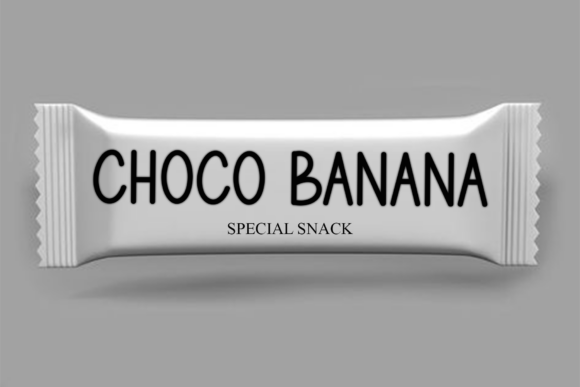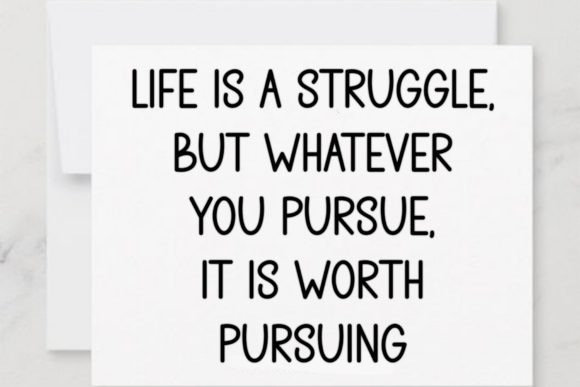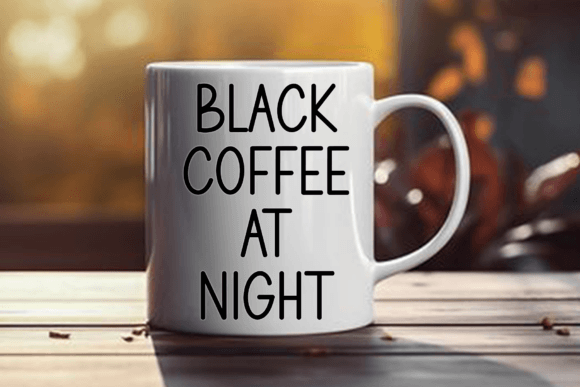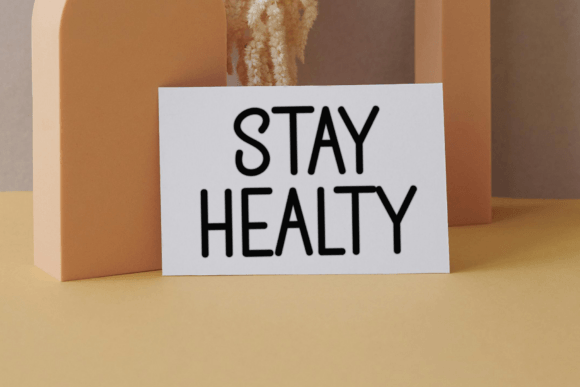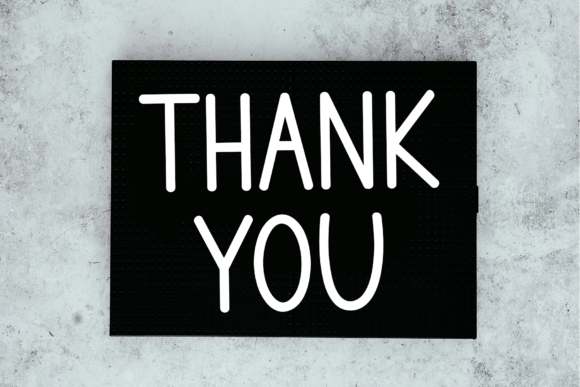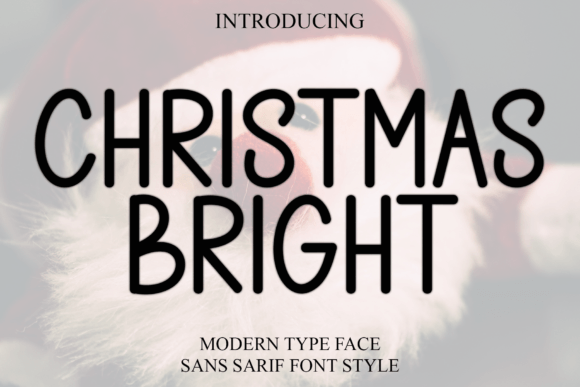
Introducing Christmas Bright Font: The Perfect Addition to Your Holiday Designs
Are you looking for a font that captures the essence of the holiday season? Look no further than Christmas Bright Font, a charming handwriting font that exudes freshness and casual elegance. This delightful font is perfect for designers and crafters seeking to add a touch of warmth and personality to their holiday-themed projects.
What is Christmas Bright Font?
Christmas Bright Font is a unique and eye-catching typeface that is sure to make your designs stand out. Its handwriting style gives it a personal and friendly feel, making it ideal for a variety of applications, including branding, invitations, social media graphics, and more. The font’s clean lines and elegant curves create a sense of sophistication, while its playful vibe keeps things fun and festive.
Key Features of Christmas Bright Font
- Handwriting style: Christmas Bright Font boasts a charming handwriting style that adds a personal touch to any design.
- Fresh and elegant: The font’s clean lines and elegant curves give it a fresh and sophisticated feel.
- Casual and playful: Christmas Bright Font has a playful vibe that makes it perfect for holiday-themed projects.
- Versatile: This font can be used for a variety of applications, including branding, invitations, social media graphics, and more.
Uses for Christmas Bright Font
Christmas Bright Font is a versatile typeface that can be used in a variety of ways. Here are a few ideas to get you started:
- Holiday invitations: Use Christmas Bright Font to create festive and inviting holiday invitations that will set the tone for your party or gathering.
- Social media graphics: Add a touch of holiday cheer to your social media graphics with Christmas Bright Font.
- Branding: Use Christmas Bright Font to create a unique and memorable brand identity for your holiday-themed business or product.
- Crafting projects: Christmas Bright Font is perfect for crafters who want to add a personal touch to their holiday crafting projects, such as handmade cards, gift tags, and more.
Tips for Using Christmas Bright Font
Here are a few tips for getting the most out of Christmas Bright Font:
- Pair with complementary fonts: Pair Christmas Bright Font with complementary fonts to create a unique and visually appealing design.
- Experiment with colors: Don’t be afraid to experiment with different colors and textures to add depth and interest to your design.
- Keep it simple: Don’t overcomplicate your design. Christmas Bright Font is perfect for simple, yet effective designs.
Christmas Bright Font is a charming and versatile typeface that is perfect for designers and crafters seeking to add a touch of warmth and personality to their holiday-themed projects. Its handwriting style, fresh and elegant feel, and casual playfulness make it ideal for a variety of applications. Whether you’re creating holiday invitations, social media graphics, or crafting projects, Christmas Bright Font is sure to become a favorite in your font collection.